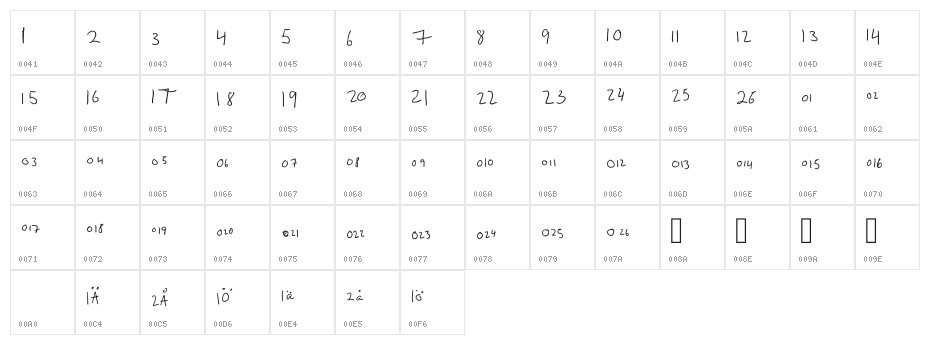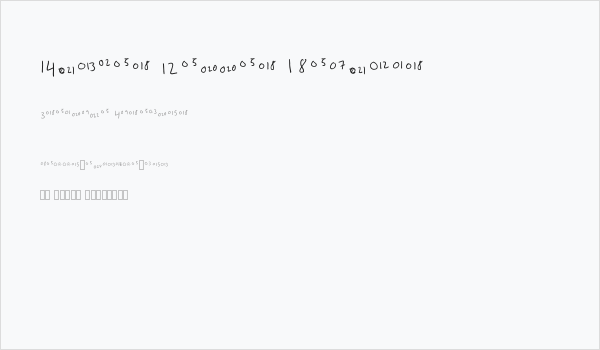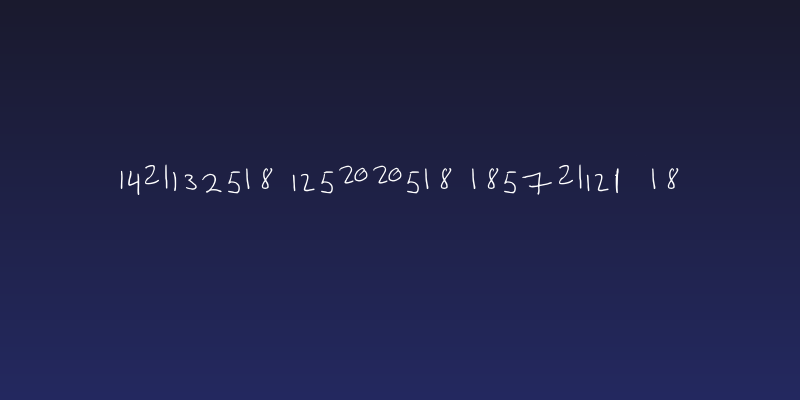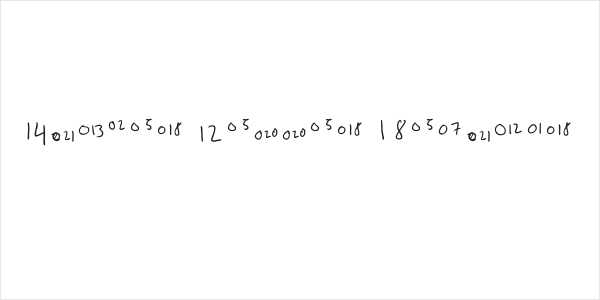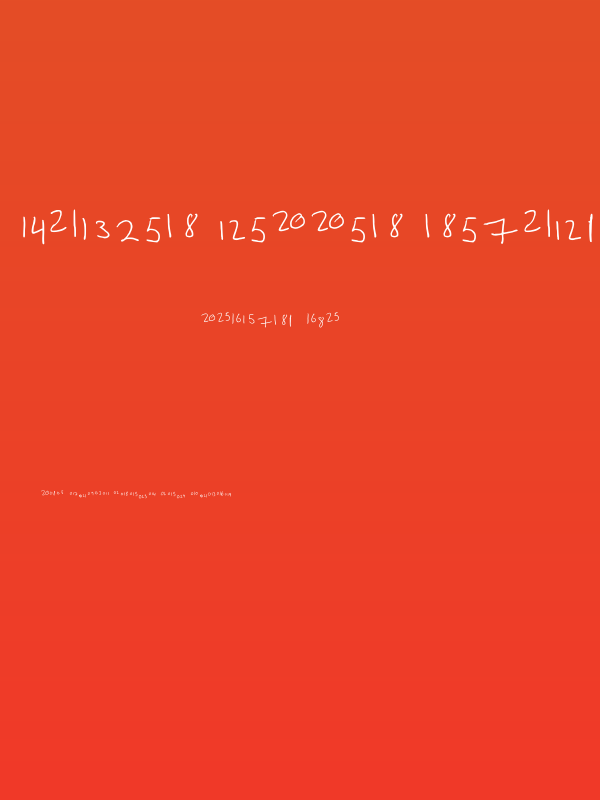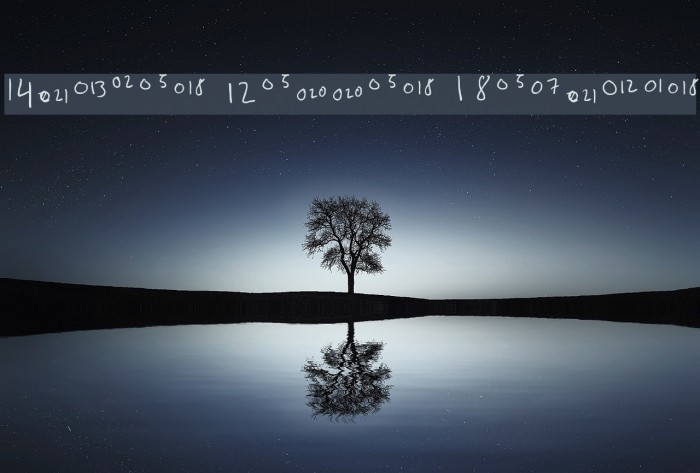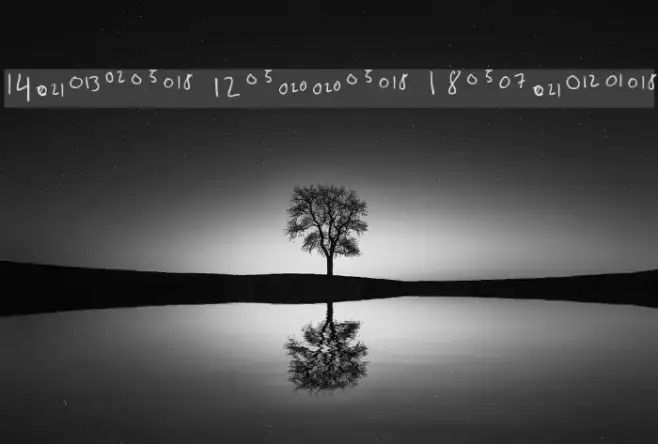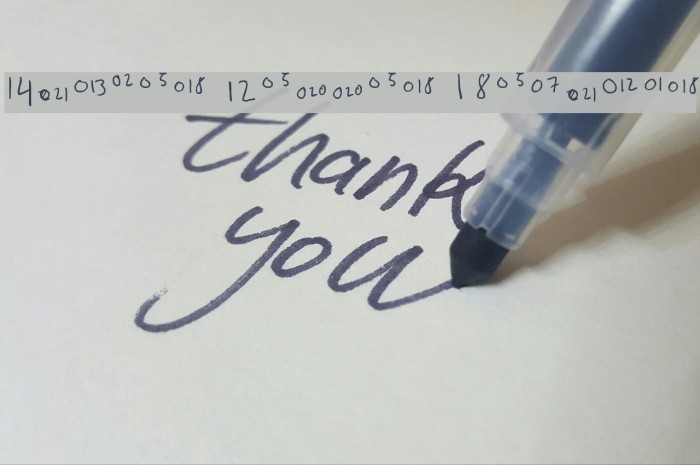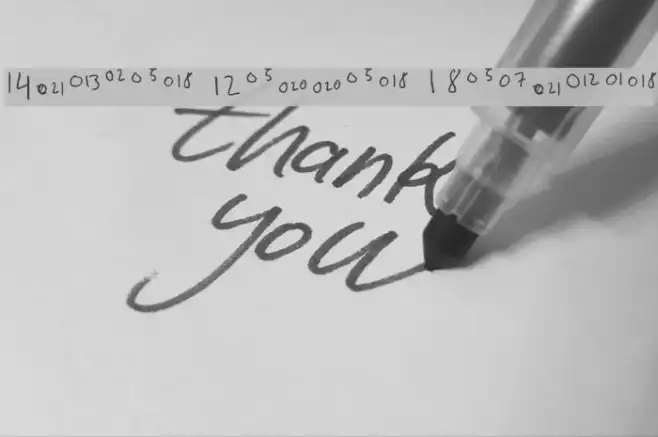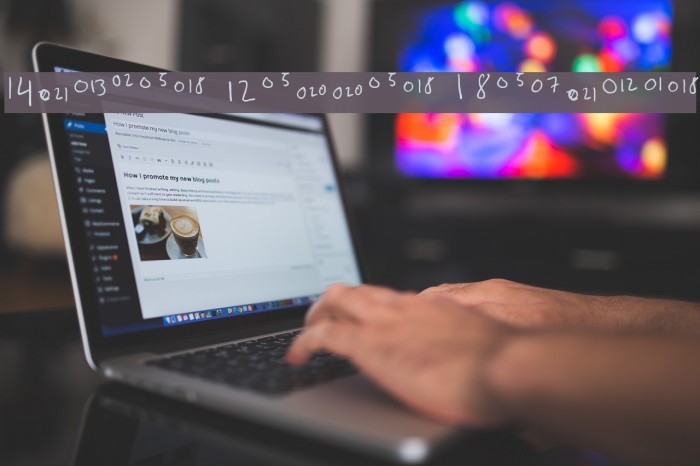
Number Letter Regular Font
Number Letter Regular Description
This font features a handwritten style with a casual and informal appearance. The characters are slightly irregular, giving them a personal and human touch. The numbers are distinct and easy to read, with a playful yet clear presentation. The strokes are consistent in width, providing a uniform look across all characters. This font is ideal for projects that require a personal or creative touch, such as invitations, greeting cards, or artistic designs. Its simplicity and readability make it versatile for various uses.
| Use Case | Headlines, Artistic designs, Personal notes |
| Proposed Projects | Ideal for invitations, greeting cards, personal notes, and creative designs. |